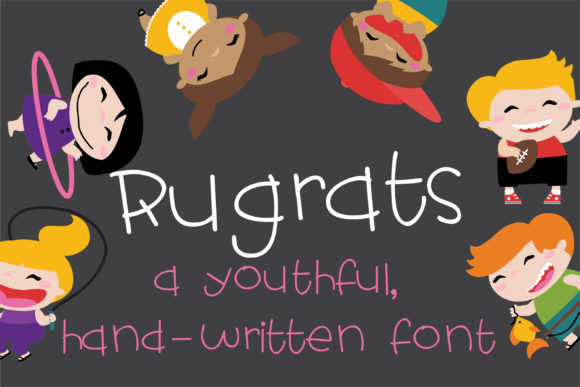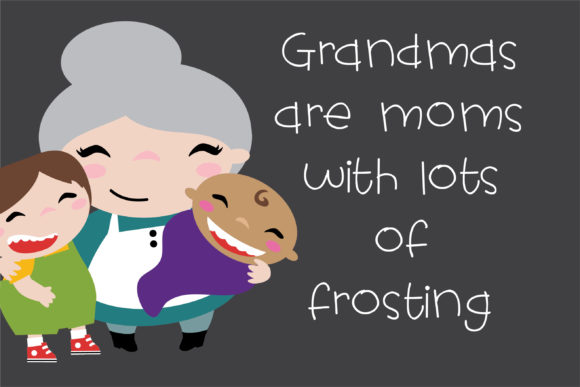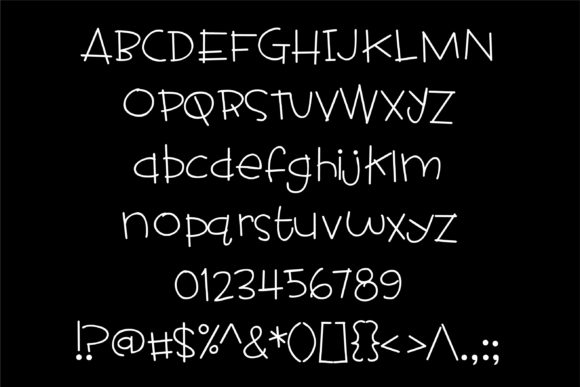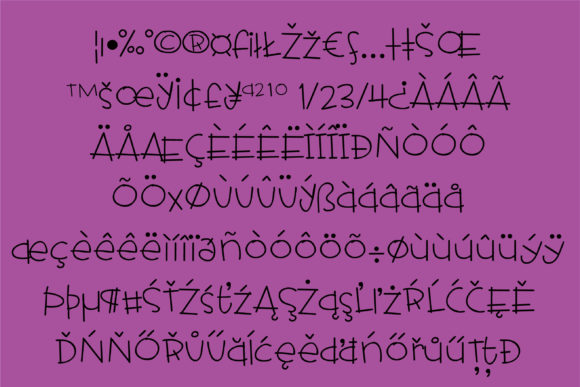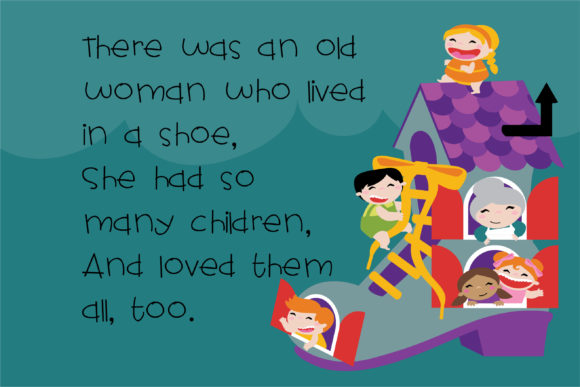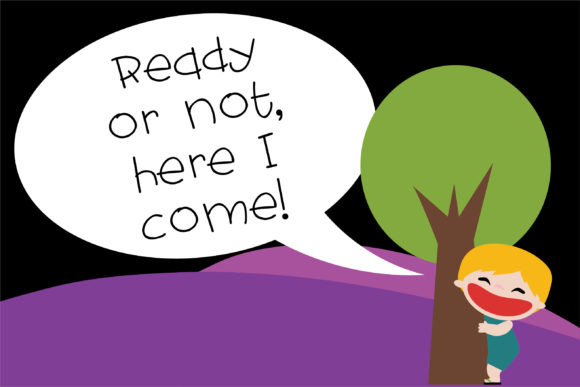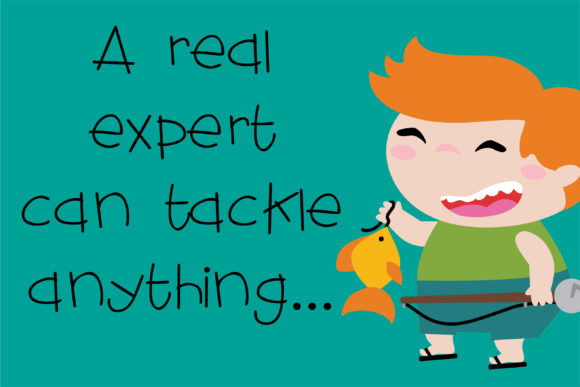
ZP Rugrats Font
About ZP Rugrats Font
Rugrats is a quirky and friendly handwritten font. This enchanting font will turn any design into a true standout. Get creative with its childlike playfulness, and use it to brighten up any kids and school project!